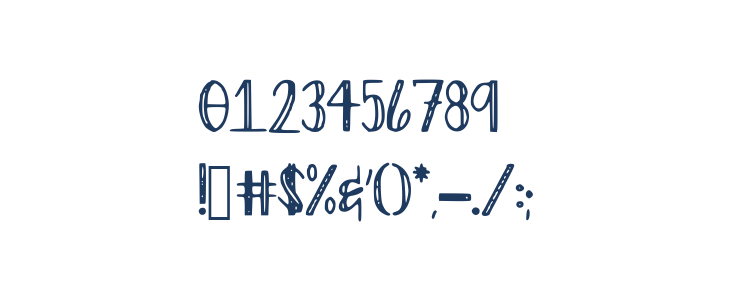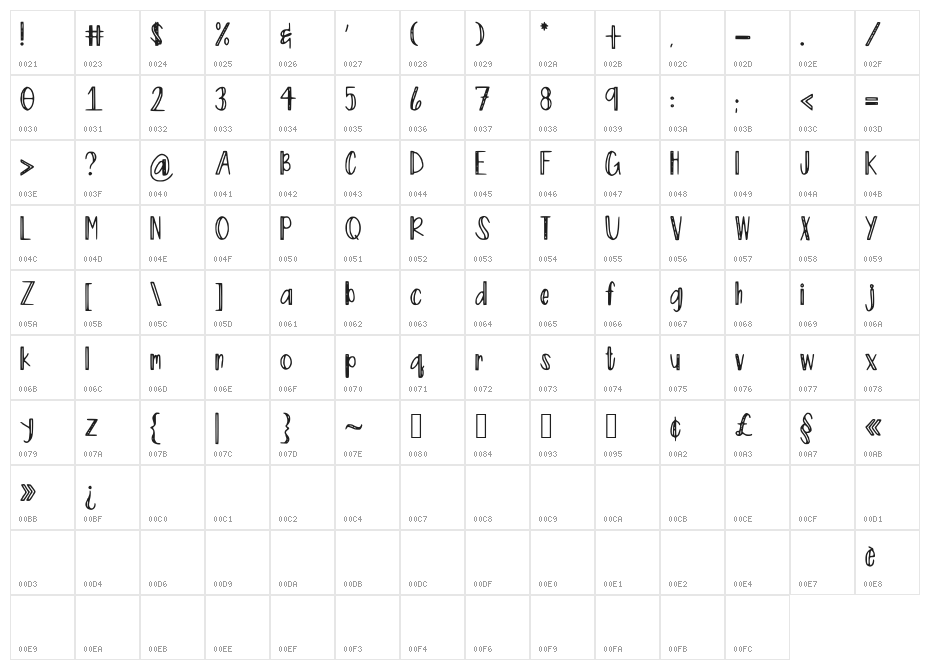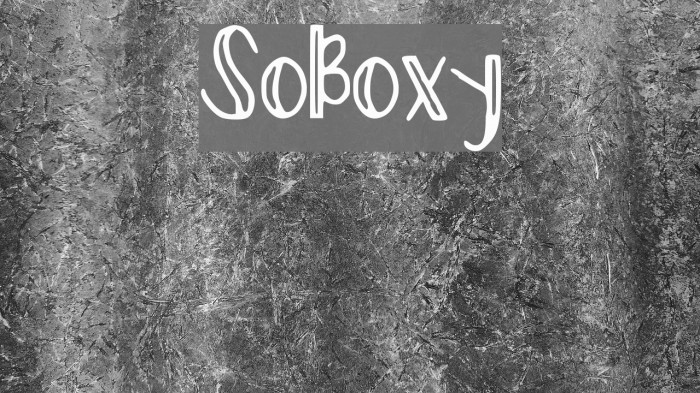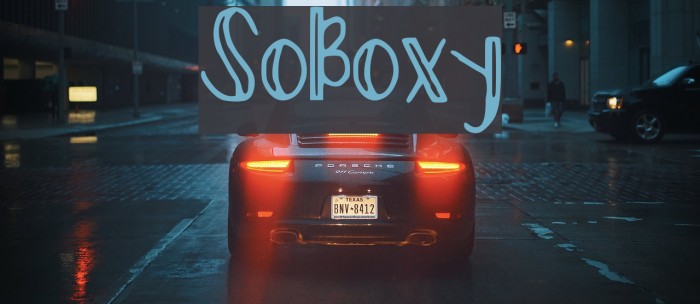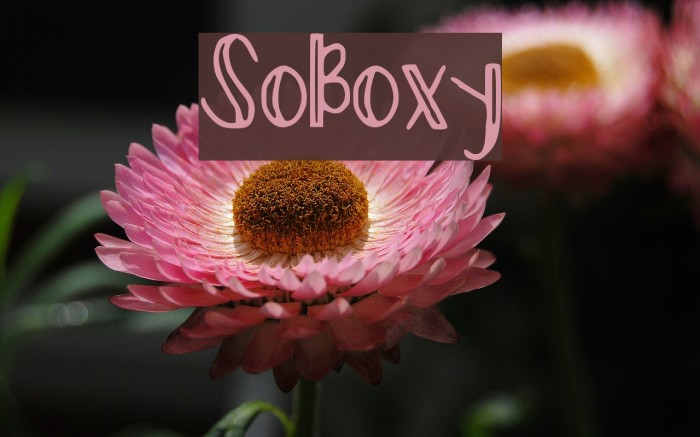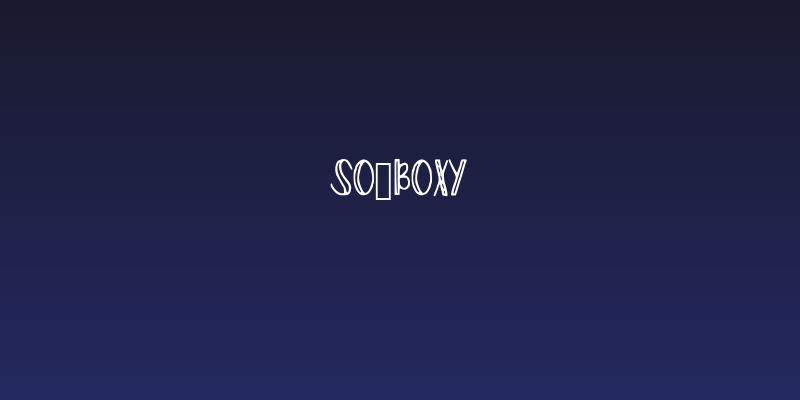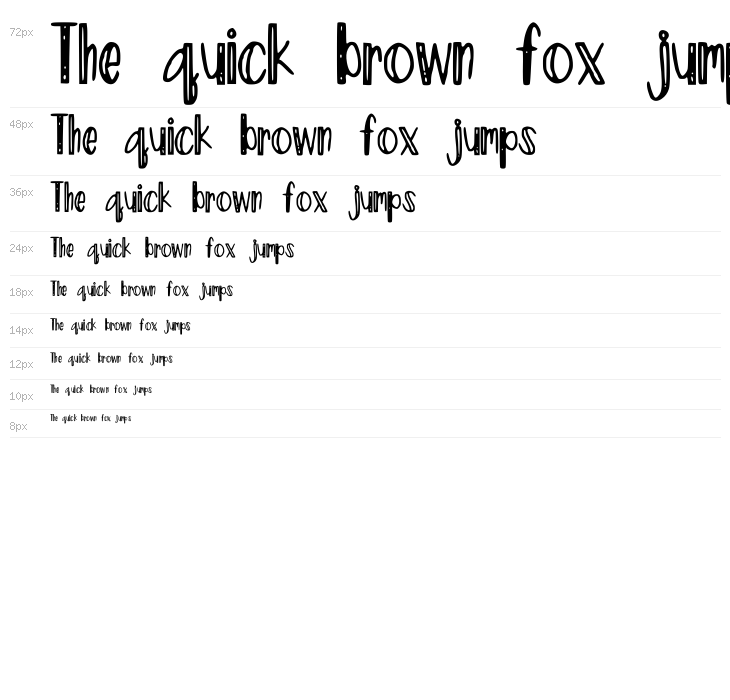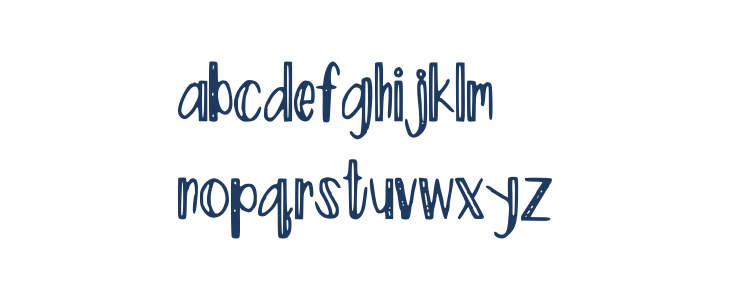
So_Boxy Font
So_Boxy Description
This font features a playful and quirky design with a hand-drawn aesthetic. The characters are tall and narrow, with a slightly irregular and whimsical appearance. Each letter is adorned with small dots, adding a unique decorative element. The font maintains a consistent stroke width, giving it a uniform look despite its playful nature. The numbers and special characters follow the same style, ensuring cohesion across all elements. This font is ideal for projects that require a fun and informal touch, such as children's books, party invitations, or playful branding.
Overall StylePlayful, Quirky, Hand-drawn
Use CaseHeadlines, Logos, Creative Posters
Proposed ProjectsIdeal for children's books, party invitations, playful branding, and creative posters.